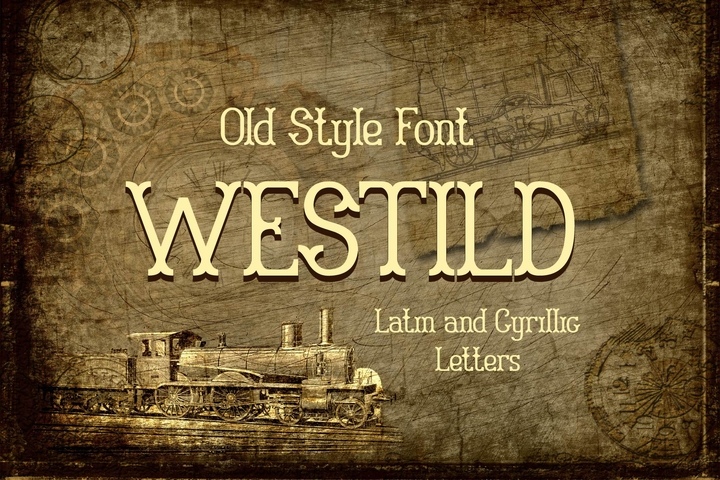
Westild Font
Westild Font is perfect for various design applications including western-themed restaurant branding, rodeo event promotions, country music festival materials, rustic bar signage, cowboy boot company logos, western wear fashion labels, ranch vacation resorts, saloon establishment signs, frontier tourism campaigns, and authentic Wild West entertainment venues. This rugged typeface excels in projects requiring frontier authenticity and western heritage appeal that captures the adventurous spirit and untamed freedom of the American frontier.
What makes Westild Font so exciting is its authentic embodiment of Wild West heritage and frontier spirit through letterforms that evoke weathered saloon signs and hand-painted wagon advertisements from the golden age of the American frontier. The font features distressed textures that suggest desert sun and prairie winds, bold proportions that mirror the larger-than-life characters of the Old West, and distinctive character details that reflect the rough-hewn craftsmanship of frontier settlements. Its distinctive western character and frontier authenticity make it perfect for brands seeking to communicate adventure, independence, and the enduring appeal of cowboy culture and western heritage.
Westild Font family includes regular and bold weights, along with distressed and ornamental variations that enhance its versatility for different western applications. Each style maintains the font's signature frontier character while providing options for various rustic design approaches. The family also features western-themed decorative elements like spurs, horseshoes, cattle brands, and frontier symbols that can be combined with the letterforms to create cohesive Wild West design systems.
Westild Font stands out by delivering genuine western authenticity that feels connected to real frontier history rather than artificial cowboy theming. Its carefully crafted weathering effects and traditional proportions ensure that designs feel authentically connected to Wild West heritage and frontier traditions. From saloon signage to western entertainment branding, this font provides designers with tools to create communications that celebrate frontier spirit and inspire appreciation for cowboy culture through rugged, heritage-inspired typography that captures the essence of the untamed American West.